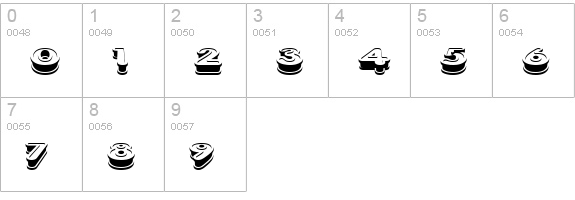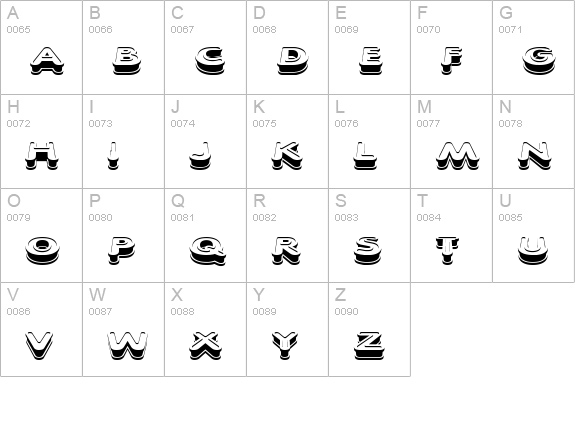
Xtrusion BRK Font Details
Xtrusion BRK font is a bold and dynamic typeface that exudes a sense of strength and modernity. Its unique design features sharp edges and a 3D extrusion effect that adds depth and character to any text. This font is perfect for making a statement in headlines, posters, and logos. What makes Xtrusion BRK font even more appealing is that it is available for free download at FontsMarket.com. This means you can easily access this eye-catching font to enhance your design projects without any cost. Whether you're looking to add a touch of sophistication or a futuristic edge to your work, Xtrusion BRK font is a versatile choice that is sure to make a bold impact.